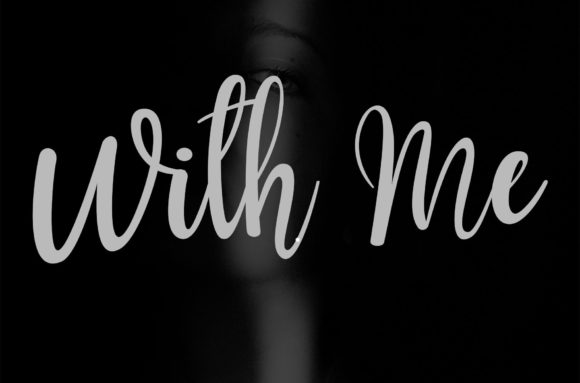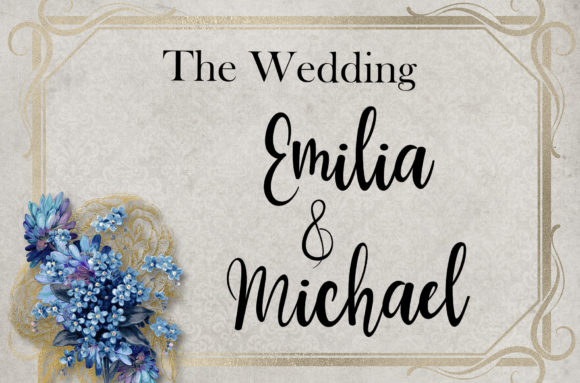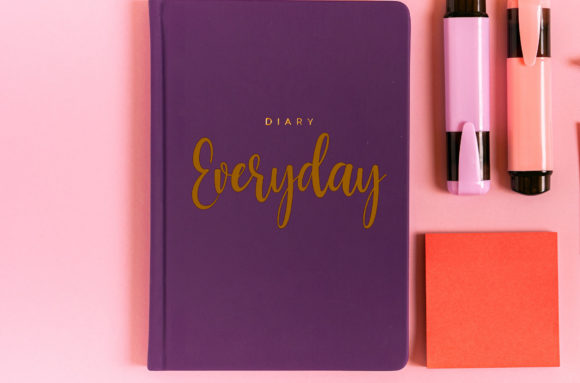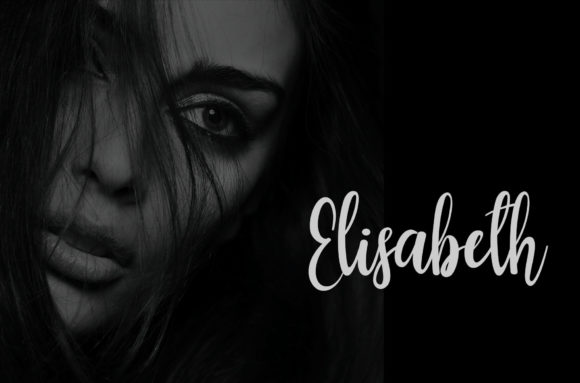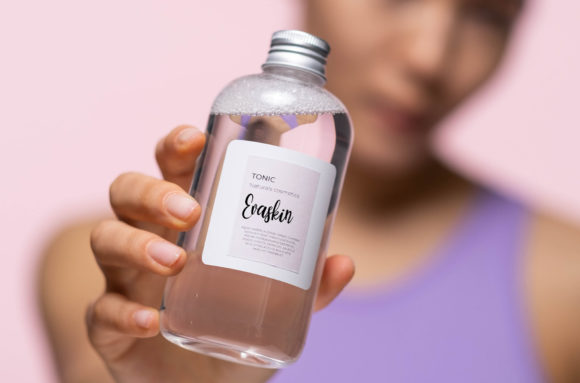
With Me Font
About With Me Font
“With Me” is an exquisite handwritten font that has been masterfully designed to become a true favorite among designers and typographers. This font beautifully combines the elegance of classic calligraphy with a fresh and contemporary aesthetic, making it a versatile choice for a wide range of applications.
The charm of “With Me” lies in its ability to retain its classy calligraphic influences while exuding a modern and fresh vibe. The subtle strokes and elegant curves are reminiscent of traditional handwriting, lending a personal and intimate feel to your text.
Despite its classic influences, “With Me” feels contemporary. It’s a font that speaks to the past while being firmly rooted in the present. Whether you’re designing a logo, crafting an invitation, or creating a blog post, “With Me” can help you convey your message with style and clarity.
Moreover, “With Me” is not just about aesthetics. It’s also about functionality. It’s a versatile font that works well in a variety of contexts, from formal documents to creative projects. With its clean lines and clear legibility, “With Me” is easy to read, making it a great choice for both print and digital media.
In a world where design matters, “With Me” can help you stand out. Its blend of modern design and classic calligraphy makes it a versatile and stylish choice for designers and creatives. Choose “With Me”, and let your designs shine.